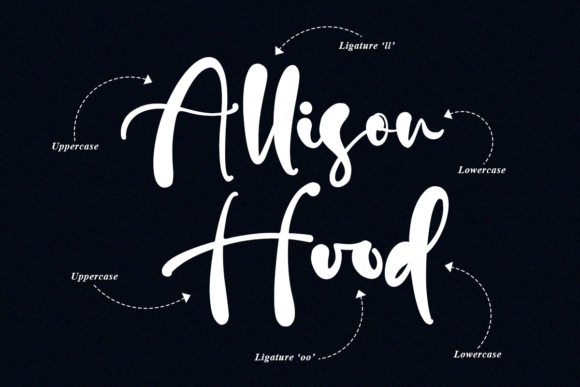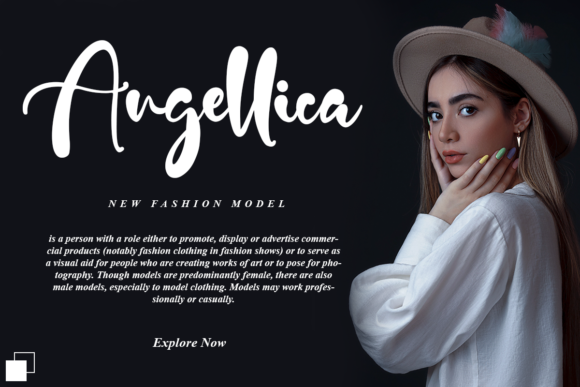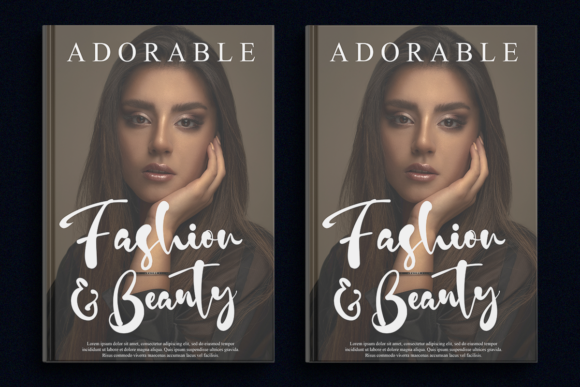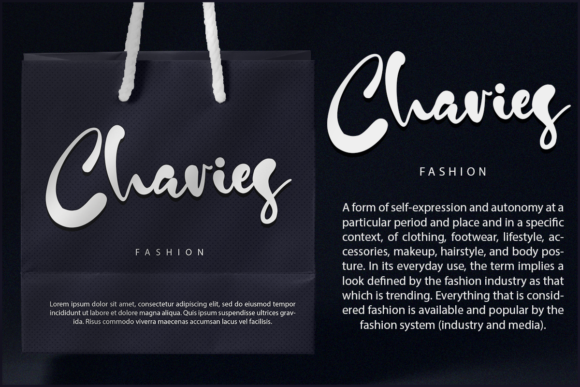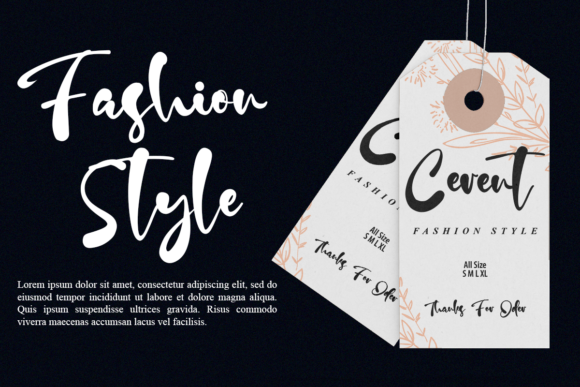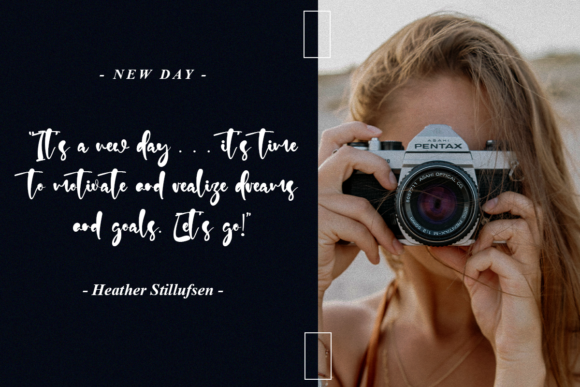
Introducing Enjoy Days Font: Elevate Your Designs with Elegance and Sophistication
Are you on the hunt for a font that exudes class, elegance, and modernity? Look no further than Enjoy Days Font! This stunning script font is designed to elevate your designs, whether you’re working on logos, branding, invitations, stationery, wedding designs, social media posts, or any other creative project. With its refined and sophisticated look, Enjoy Days Font is sure to become your go-to choice for all your design needs.
What Makes Enjoy Days Font So Special?
Enjoy Days Font boasts a beautiful, flowing script style that is both elegant and modern. Its classy appearance makes it perfect for designs that require a touch of sophistication, such as luxury brand logos, formal event invitations, and high-end wedding stationery. The font’s refined lines and curves create a sense of movement and fluidity, adding a dynamic touch to any design.
Endless Design Possibilities with Enjoy Days Font
One of the best things about Enjoy Days Font is its versatility. Its elegant and modern look makes it suitable for a wide range of design applications, including:
• Logos and Branding: Create a lasting impression with a custom logo that showcases your brand’s personality and style.
• Invitations and Stationery: Make your special occasions even more memorable with beautifully designed invitations, cards, and stationery.
• Wedding Designs: Add a touch of romance and elegance to your wedding designs, from invitations to ceremony programs and wedding cakes.
• Social Media Posts: Elevate your social media presence with stylish and engaging posts that showcase your brand’s personality.
Why Choose Enjoy Days Font?
With so many fonts available, why choose Enjoy Days Font? Here are just a few reasons why designers and crafters love this beautiful script font:
• Unique and Eye-Catching: Enjoy Days Font is a one-of-a-kind font that will make your designs stand out from the crowd.
• Elegant and Sophisticated: The font’s refined lines and curves create a sense of luxury and sophistication, perfect for high-end designs.
• Easy to Read: Despite its elegant appearance, Enjoy Days Font is easy to read, making it perfect for body text and captions.
• Highly Versatile: The font can be used for a wide range of design applications, from logos and branding to social media posts and wedding designs.
Tips for Using Enjoy Days Font
To get the most out of Enjoy Days Font, here are a few tips to keep in mind:
• Use it as a Headline Font: Enjoy Days Font is perfect for headlines and titles, where its elegant appearance can really shine.
• Pair it with a Sans-Serif Font: For body text and captions, pair Enjoy Days Font with a clean sans-serif font to create a beautiful contrast.
• Experiment with Colors: Enjoy Days Font looks great in a range of colors, from classic black and white to bold brights and pastels.
Font Name Enjoy Days Font
Author staircasestudio20
In conclusion, Enjoy Days Font is a beautiful and refined script font that is sure to elevate your designs. With its elegant and modern look, versatility, and ease of use, it’s the perfect choice for designers and crafters looking to add a touch of sophistication to their work. Whether you’re working on logos, branding, invitations, stationery, wedding designs, or social media posts, Enjoy Days Font is a must-have font that will help you create stunning designs that leave a lasting impression.